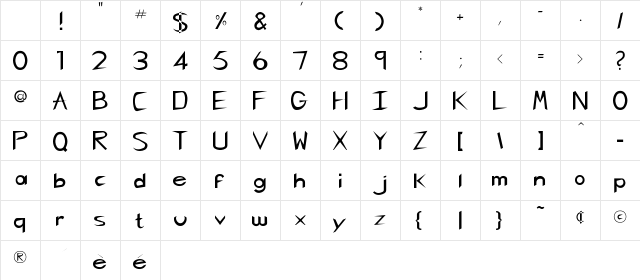
Complete RSCharlieChan Regular glyph index. Displaying only characters natively supported by RSCharlieChan Regular font.
RSCharlieChan is a composed and adaptable typeface that performs quietly and consistently across a wide range of design contexts.